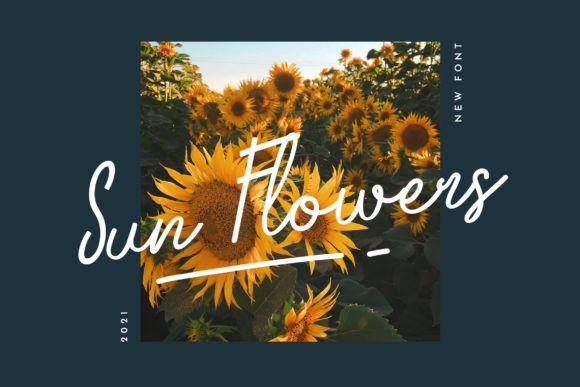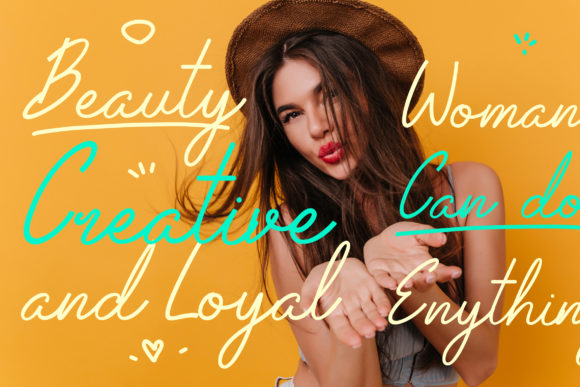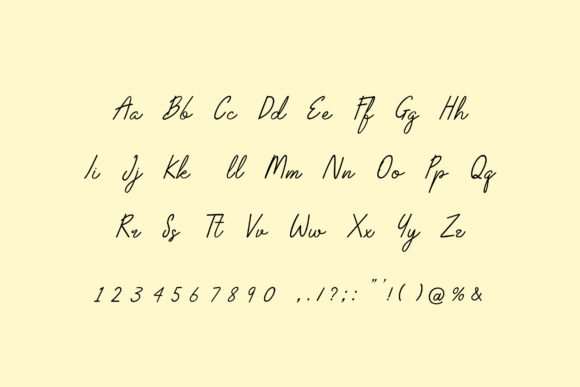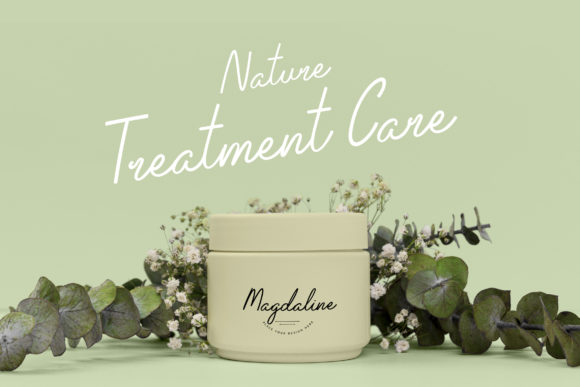
Discover the Elegance of Alexandra Magnolia Font
As designers, we’ve all been there – staring at a blank page, waiting for the perfect font to bring our vision to life. For me, it was the moment I stumbled upon the Alexandra Magnolia Font, and I knew I had found something special. Its delicate curves and smooth lines seemed to whisper ‘fashion’ and ‘editorial’ in my ear, and I couldn’t wait to see what magic it could create.
The Alexandra Magnolia Font is a cursive script that exudes sophistication and refinement. Its thin lines and elegant strokes make it the perfect addition to any fashion branding or editorial design project. Whether you’re creating a luxury fashion magazine or a high-end clothing label, this font is sure to elevate your design to the next level.
What sets the Alexandra Magnolia Font apart is its versatility and ability to add a touch of whimsy to even the most formal designs. Add it to your projects with confidence, and you’ll be amazed at the results – it’s a game-changer for any designer looking to take their work to the next level.
Alexandra Magnolia Font Key Features
- Font Family: Alexandra Magnolia is a script font, ideal for creating elegant and sophisticated designs.
- Size and Resolution: The font is designed to be used at medium to large sizes, with optimal legibility at 14-24 points and a resolution of 300 DPI.
- Unique Characteristics: Alexandra Magnolia features flowing, cursive lines with subtle flair, making it perfect for titles, headings, and decorative text.
Review of Alexandra Magnolia Font
I recently had the chance to work with Alexandra Magnolia Font, and I must say it’s a beautiful, elegant script font. ✨ The flowing lines, the subtle flair at the ends of the letters, and the refined feel all contribute to a sophisticated look that’s perfect for luxury brands, wedding invitations, or any other high-end design project. ✨ The font also comes with a range of ligatures and swashes that add an extra touch of whimsy and personality.
However, there are a few limitations to consider. ⚠️ The font can be quite dense, which may make it difficult to read at very small sizes. Additionally, the swashes can sometimes feel a bit inconsistent, which may be jarring to some users. ⚠️ Finally, the font’s aesthetic is quite traditional and may not be the best fit for modern or edgy designs.
Overall, I think Alexandra Magnolia Font is a lovely addition to any designer’s toolkit. While it may not be the most versatile font, it’s sure to bring a touch of elegance and sophistication to any project that needs it.
- What works well:
- Beautiful, flowing lines
- Refined, sophisticated feel
- Ligatures and swashes add extra personality
- Limitations:
- Dense, may be difficult to read at small sizes
- Inconsistent swashes
- Traditional aesthetic may not be modern enough
For the most effective use of Alexandra Magnolia Font, use it for headings and subheadings to create a clear visual hierarchy. It’s ideal for wedding invitations, branding materials, and other design projects that require a touch of sophistication and elegance.